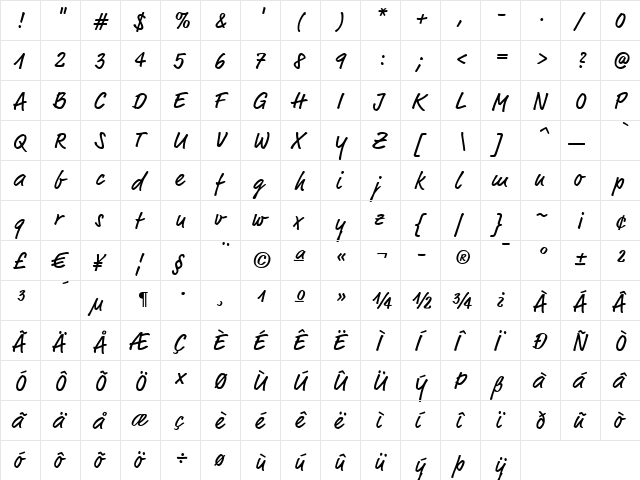
Market Web Regular
| Designer | H.A. Simon |
Design Context for Market Web Typeface
Market Web offers clean, dependable letterforms without strong stylistic allegiance, making it a practical choice for designers who need flexibility.